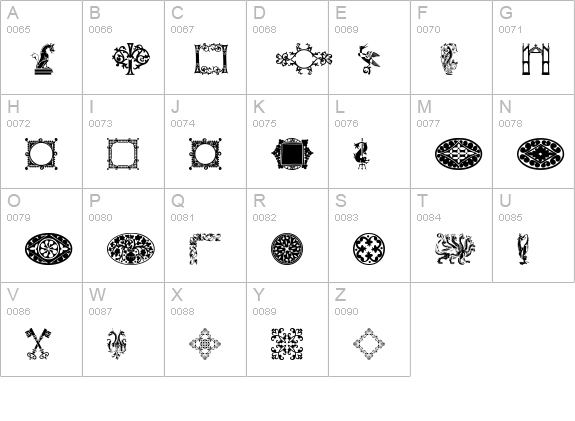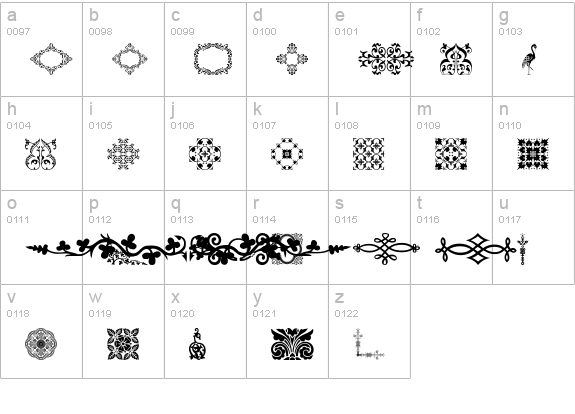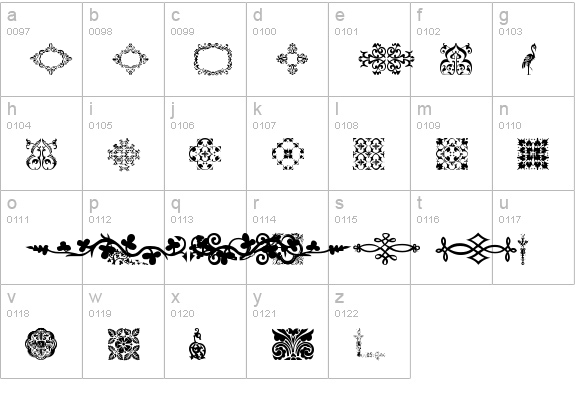
DBL MedievalDesign Font Details
DBL MedievalDesign font is a stunning typeface that beautifully captures the essence of medieval design. With its ornate details and elegant curves, this font is perfect for adding a touch of historical charm to your projects. The intricate letterforms of DBL MedievalDesign evoke a sense of old-world craftsmanship and timeless beauty. Best of all, this exquisite font is available for free! You can easily download DBL MedievalDesign at FontsMarket.com and start using it in your designs right away. Whether you're creating invitations, posters, or branding materials, DBL MedievalDesign will bring a touch of medieval sophistication to your work. Don't miss out on the opportunity to enhance your designs with this unique and visually striking font. Download DBL MedievalDesign today and let your creativity soar!